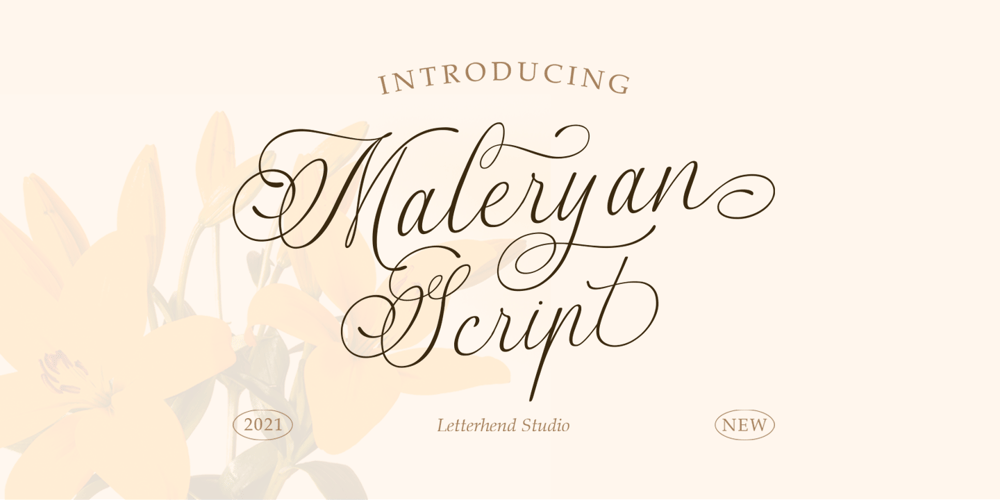
Maleryan Font Family was designed by Hendry Juanda and published by Letterhend. Maleryan contains 1 styles and family package options. ScriptMaleryan Script – Modern CalligraphyMaleryan is a beautiful modern calligraphy script based on manual hand writing. The natural flow with the swashes make this font looks even more prettier. This type of font perfectly made to be applied especially in wedding invitation, labels, logos, magazines, books, greeting / wedding cards, packaging, fashion, make up, stationery, novels, labels or any type of advertising purpose.Features : uppercase & lowercase numbers and punctuation multilingual swash and ligature alternates PUA encoded We highly recommend using a program that supports OpenType features and Glyphs panels like many of Adobe apps and Corel Draw, so you can see and access all Glyph variations. How to access opentype feature : letterhend.com/tutorials/using-opentype-feature-in-any-software/